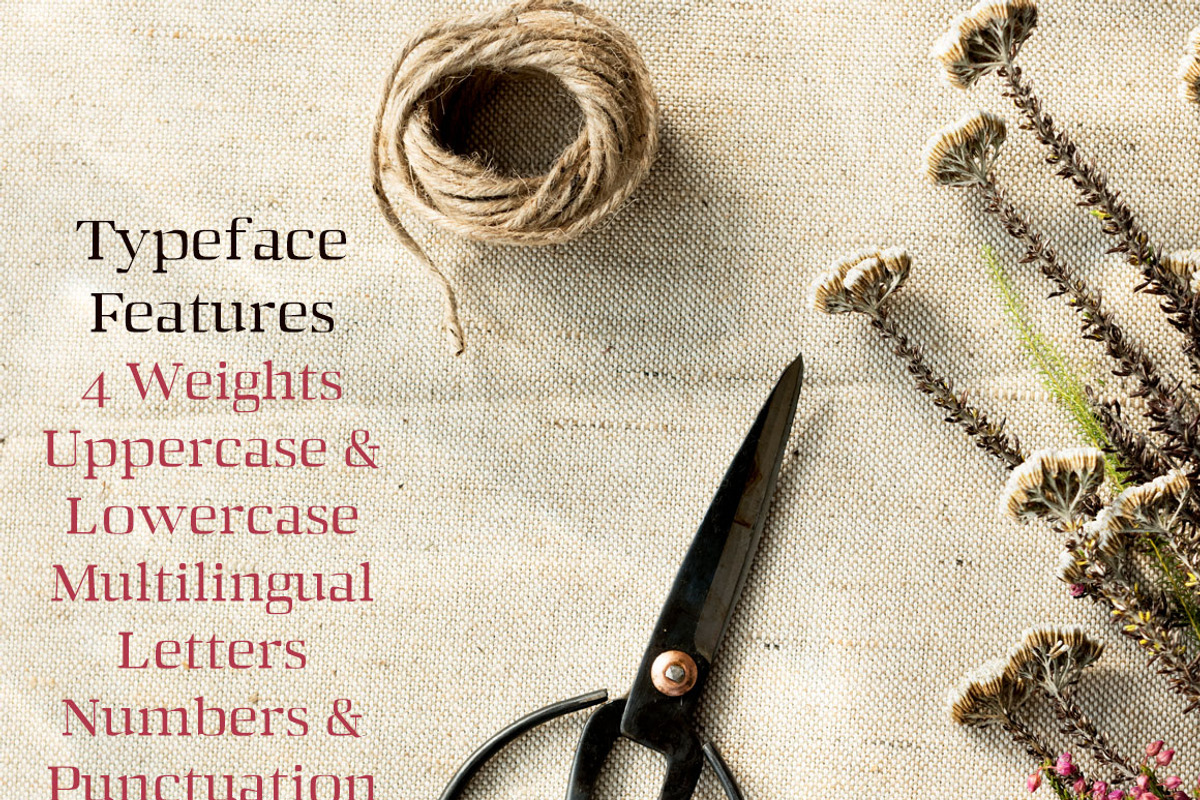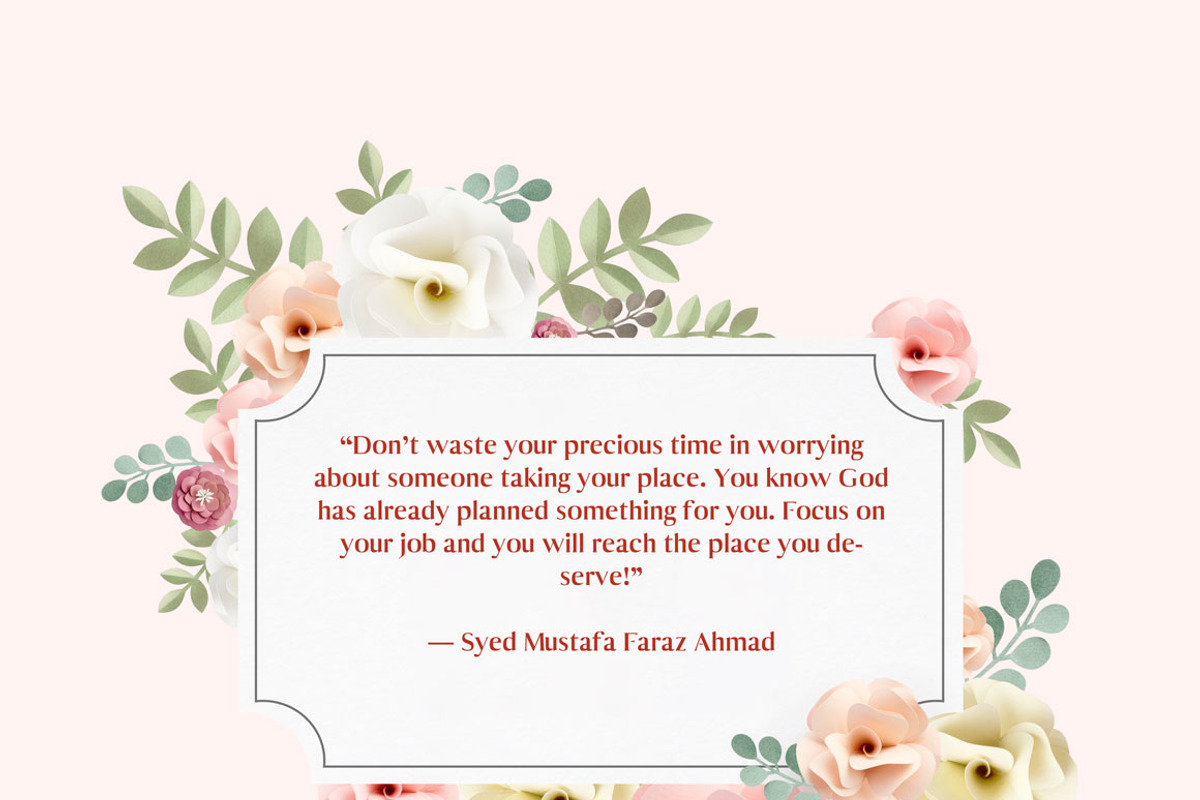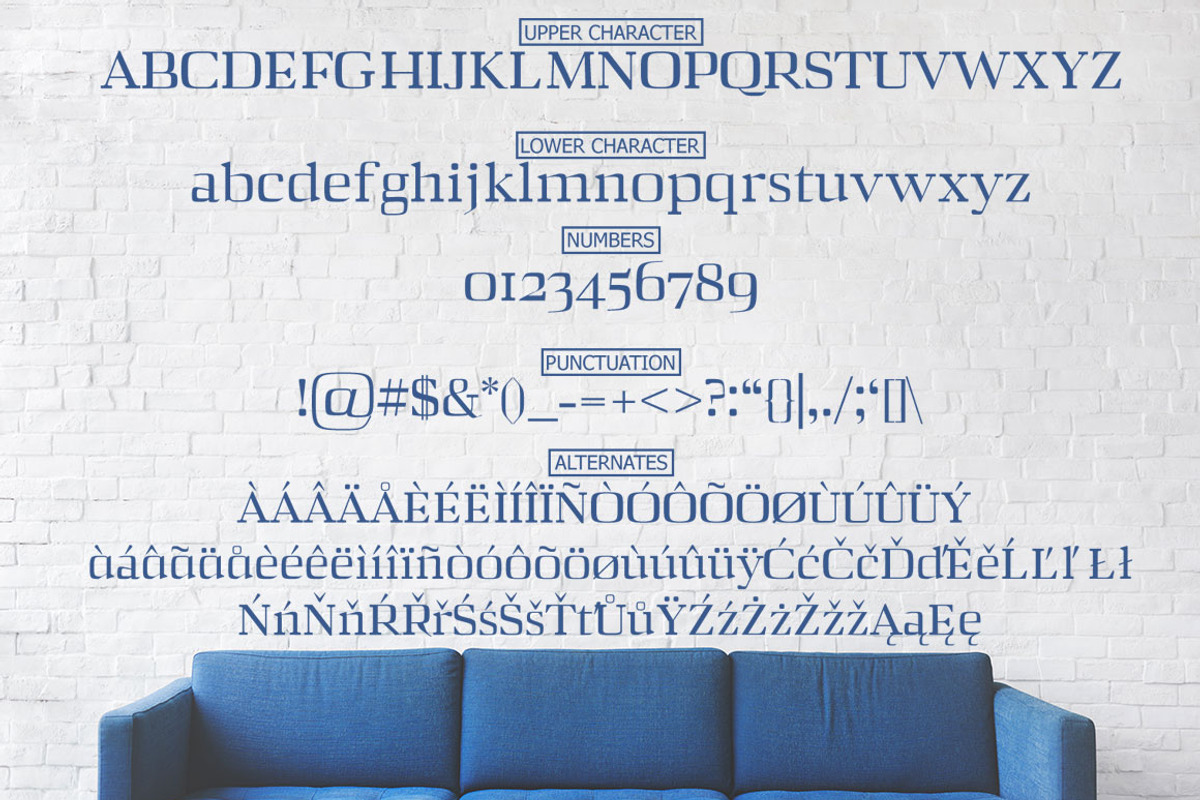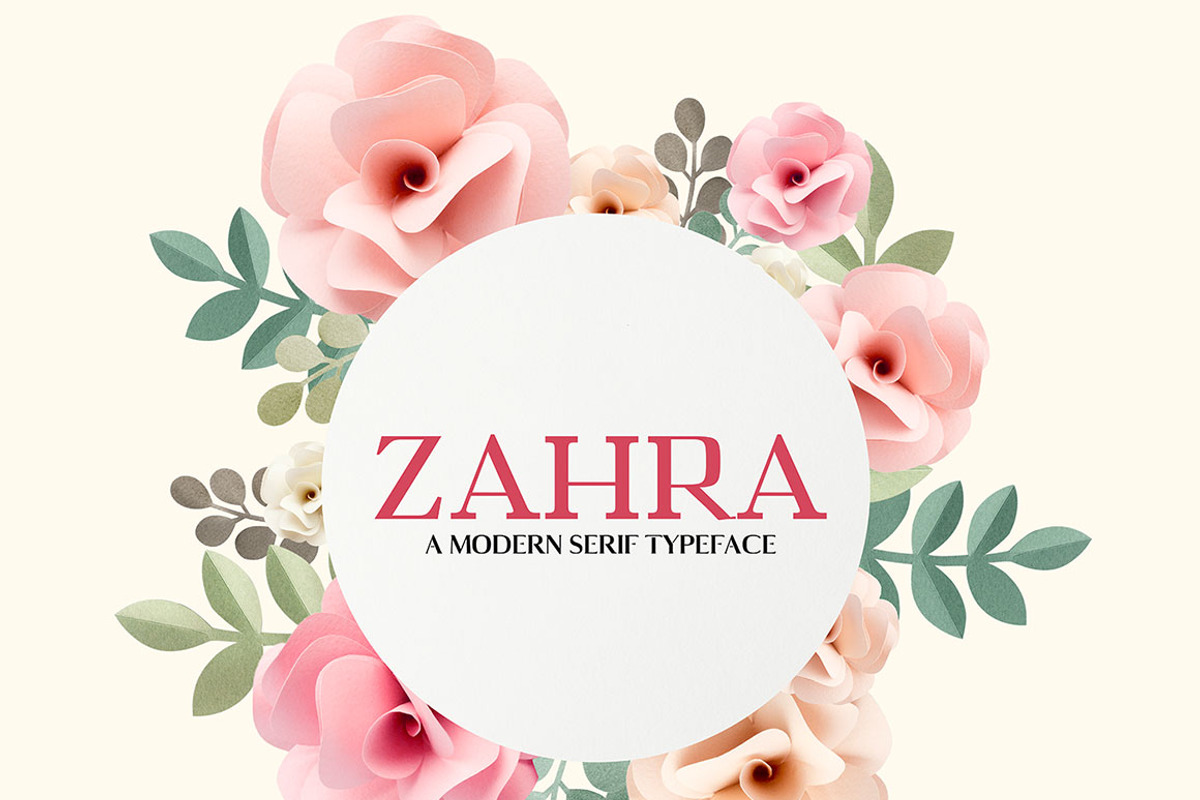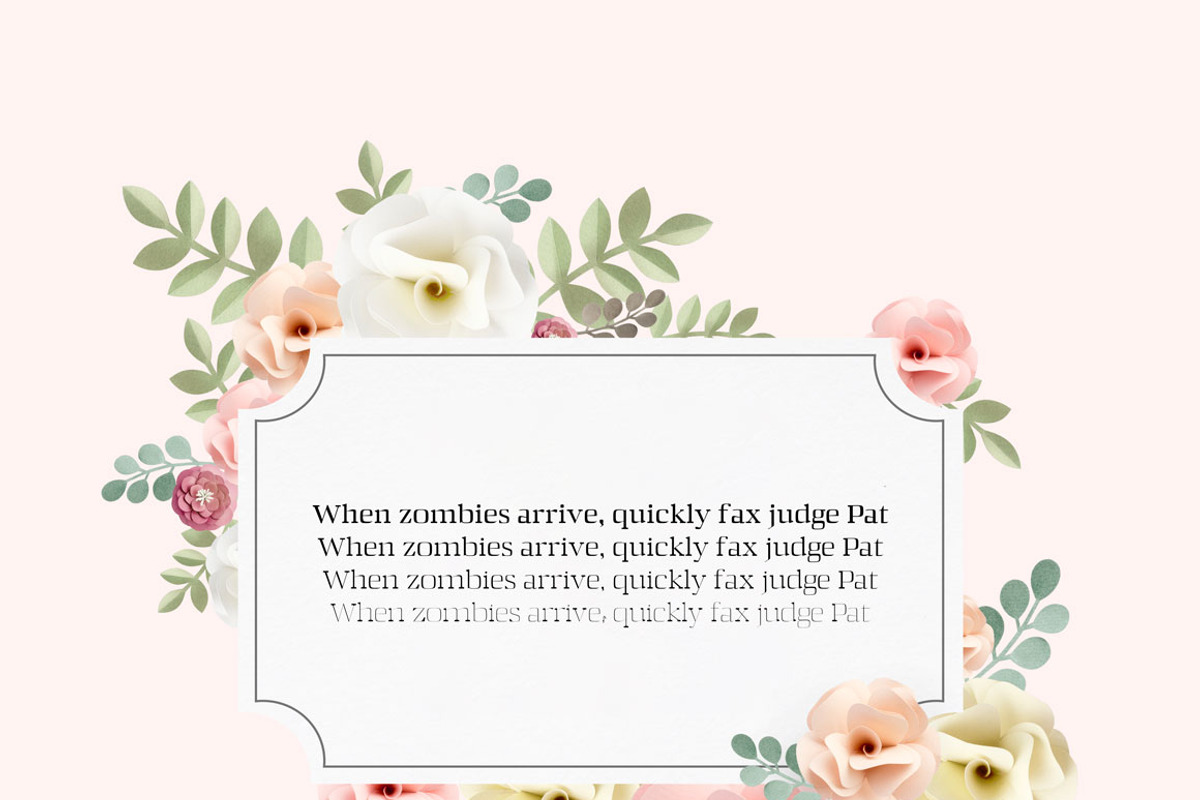
Zahra Serif 6 Font Family Pack
Zahra Serif 6 Font Family Pack by Creativetacos is a font selected for branding, posters, packaging, typography.
- Font Weight: Regular, Thin, Light, Medium, Rounded and Bold
- Zahra Thin
- Zahra Light
- Zahra Regular
- Zahra Medium
- Zahra Bold
- Zahra Round
Why Zahra Serif 6 Font Family Pack is worth a look
Zahra Serif 6 Font Family Pack by Creativetacos fits naturally into Branding, posters, packaging, typography.